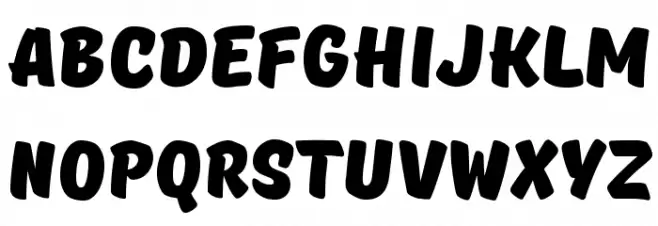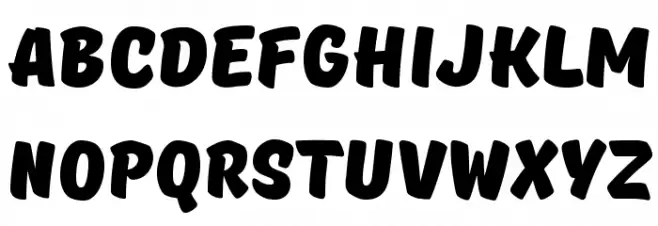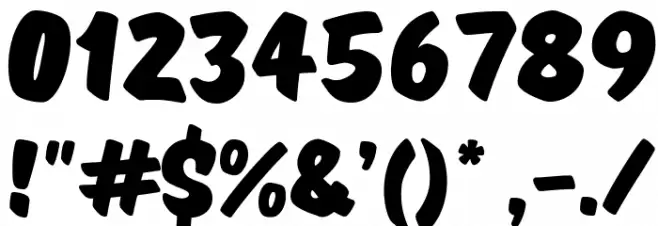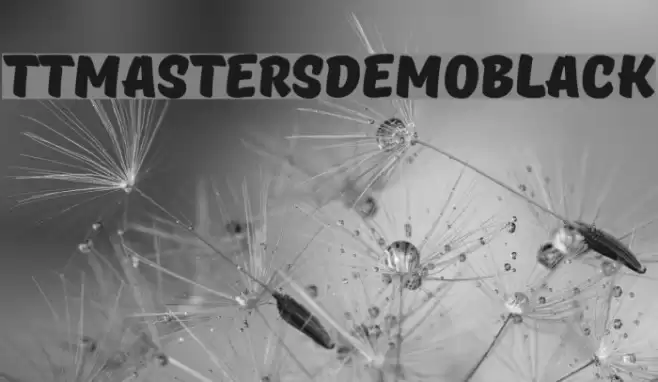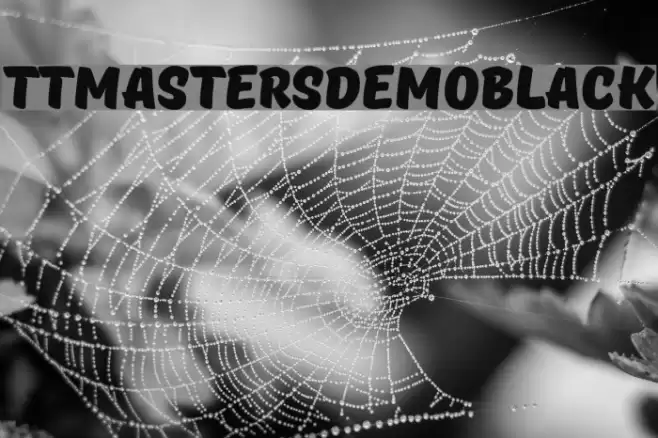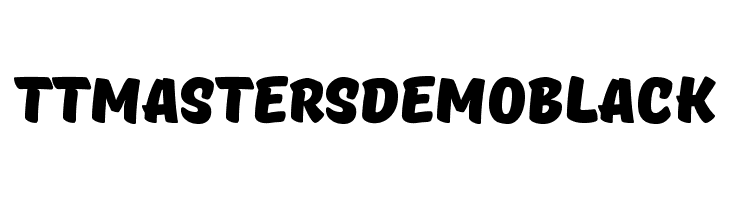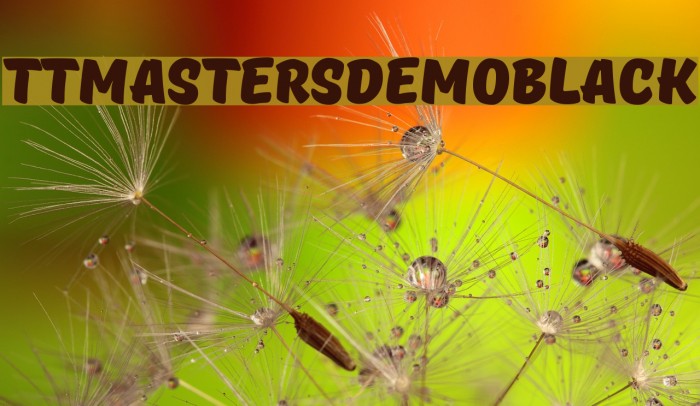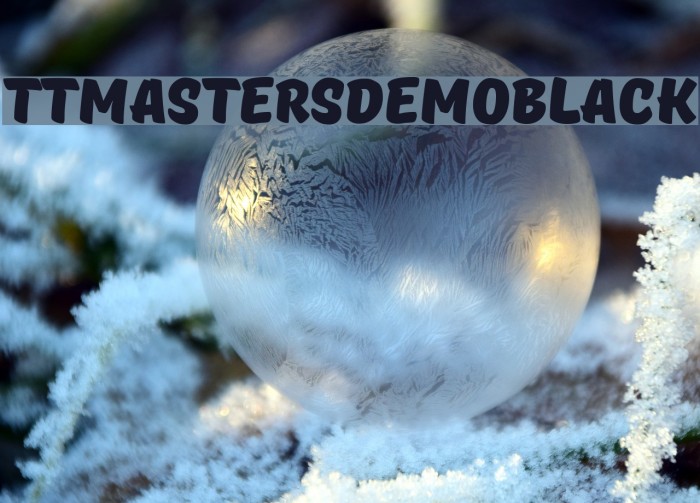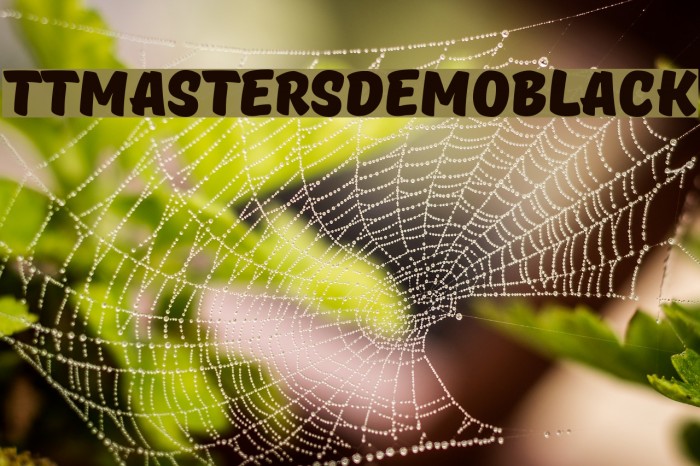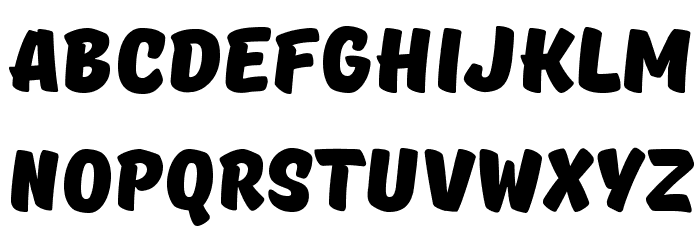
TTMastersDEMOBlack
This font features bold, rounded characters with a playful and dynamic appearance. The letters are thick and slightly irregular, giving them a hand-drawn feel that adds a sense of energy and movement. The uppercase and lowercase letters maintain a consistent style, with the lowercase being slightly smaller but equally bold. Numbers and special characters are designed to match the overall aesthetic, ensuring a cohesive look across all text elements. The font's boldness and unique style make it stand out, ideal for projects that require a strong visual impact.
A bold, playful font with rounded, hand-drawn characters.
- Proposed Projects: Ideal for posters, children's books, logos, and branding materials that require a fun and energetic style.
- Overall Style: Playful, Energetic
- Use Case: Headlines, Logos, Posters